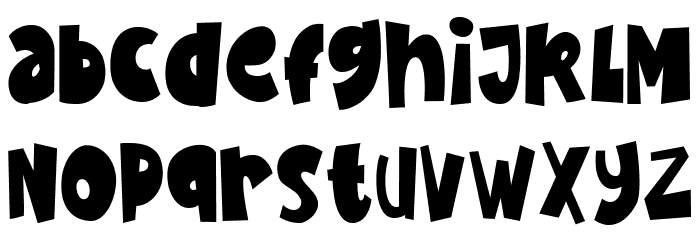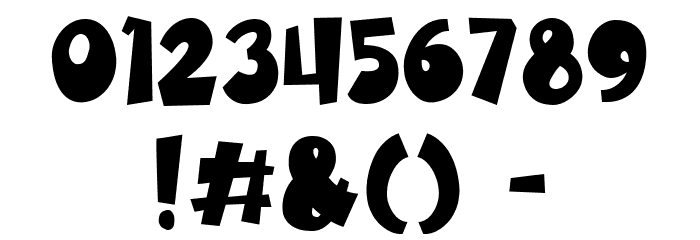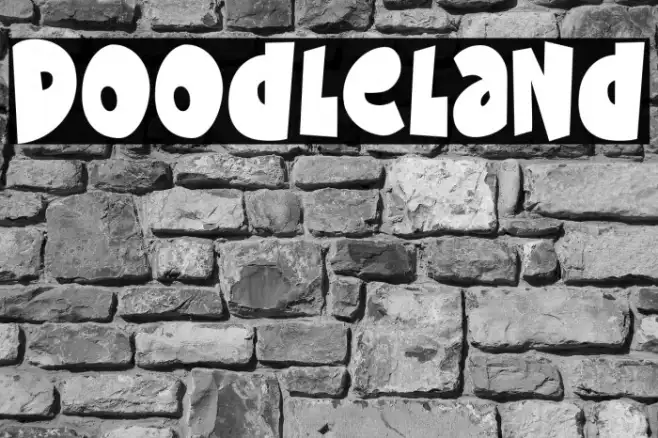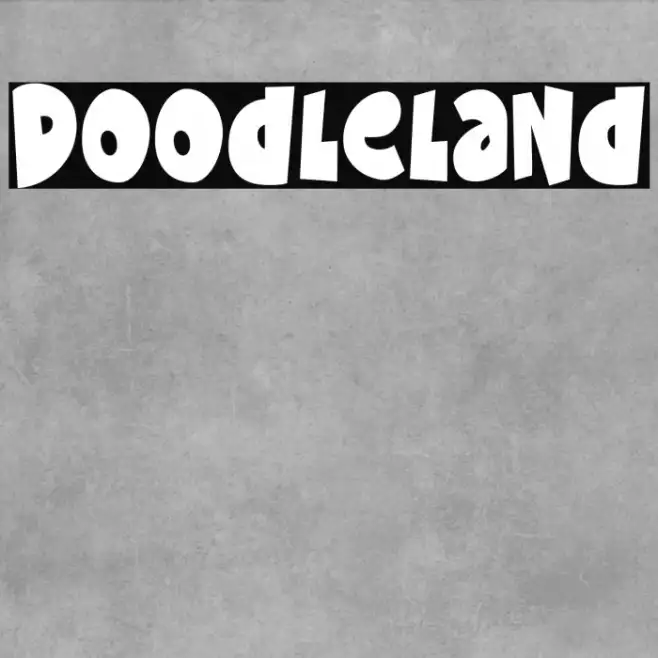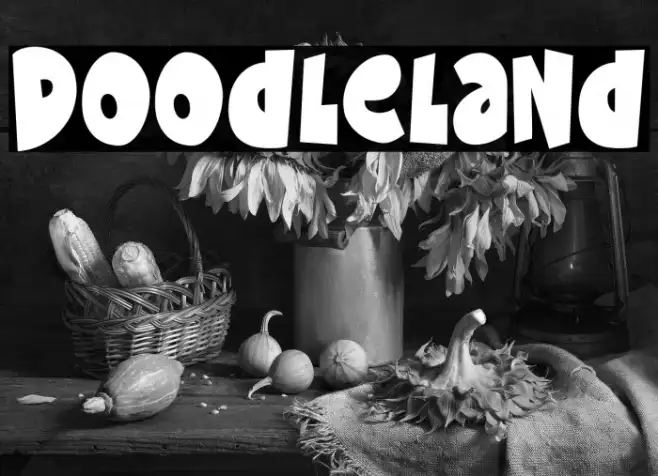
Doodleland Font
This playful and whimsical font features bold, irregular shapes that give it a hand-drawn, cartoonish appearance. The letters are characterized by their uneven lines and varying thickness, creating a lively and energetic feel. The uppercase and lowercase letters maintain a consistent style, with exaggerated curves and angles that add to the font's quirky charm. Numbers and special characters follow the same playful design, making this font ideal for creative and informal projects. Its unique style makes it stand out, perfect for capturing attention and conveying a sense of fun.
A playful, hand-drawn font with bold, irregular shapes and a cartoonish style.
- Font: Doodleland
- Proposed Projects: Ideal for children's books, comic strips, playful branding, and creative posters.
- Overall Style: Whimsical, Playful